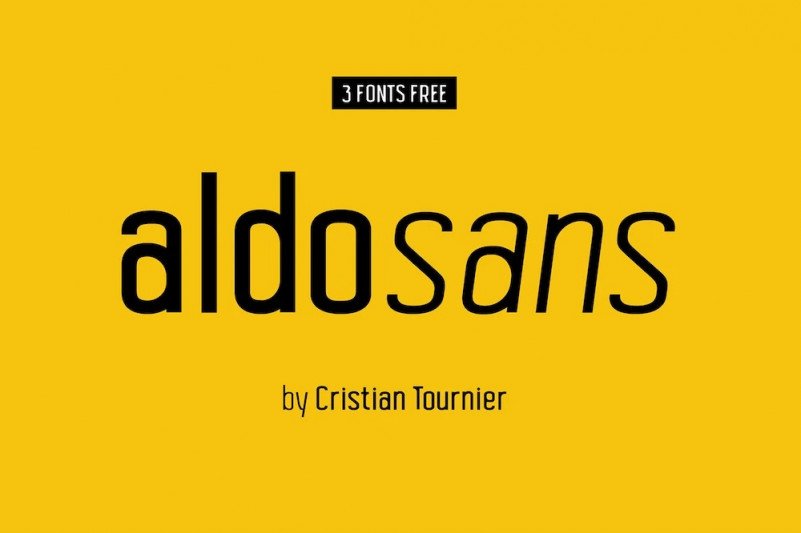
Aldo Sans Font
Aldo Font is an upper and lowercase sans serif industrial style font. It has 3 styles: Regular, Italic, Bold, and is multilingual. Aldo Sans is perfect for logos, business cards, magazine layouts, invitations, headers, and large-scale artwork. Support this creator by making a donation.